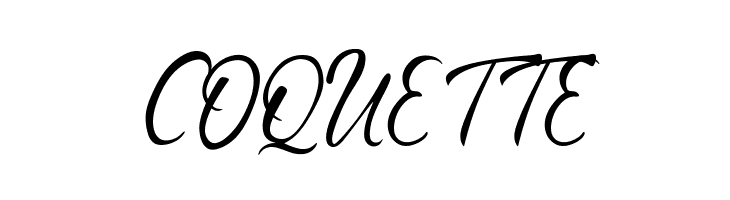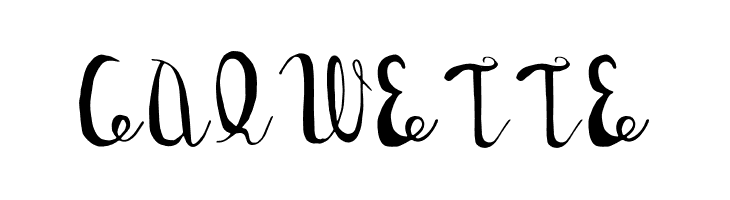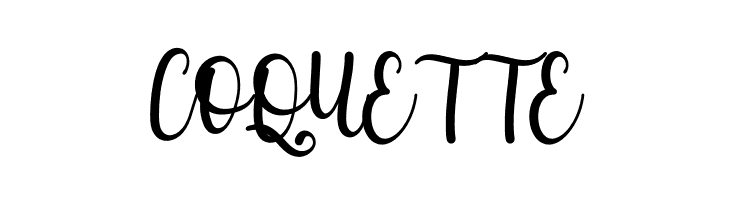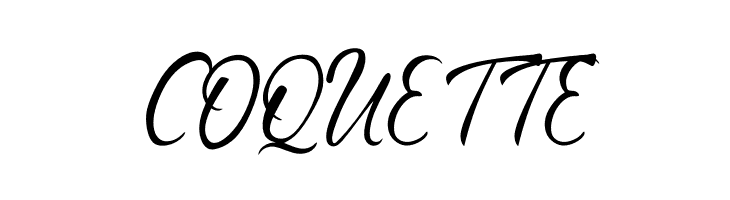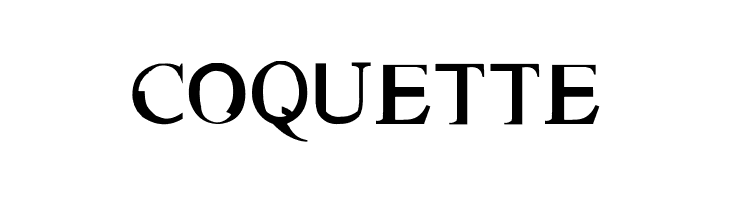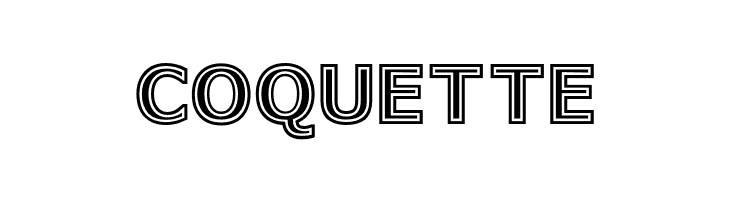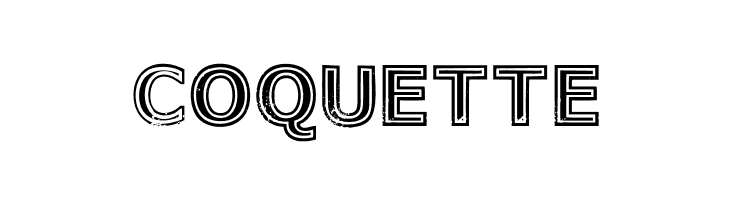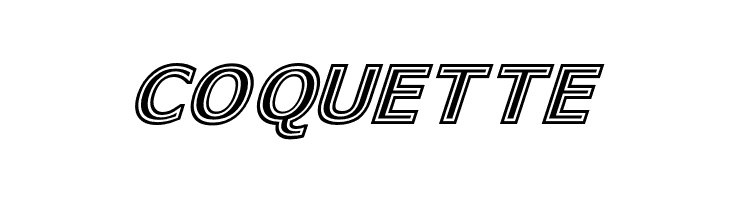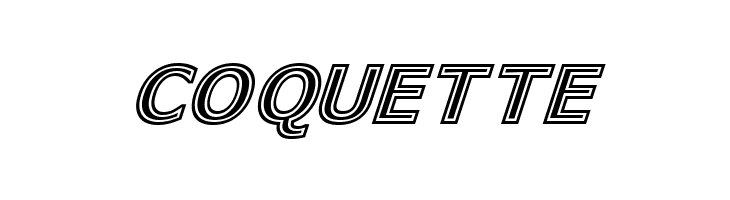
• Generica Bold
A bold, geometric font with a modern and impactful style.
• Genericons Regular
A versatile set of clean, minimalistic icons for digital applications.
• Generous Monarch
A dramatic, elongated font with sharp, tapering strokes and a hand-drawn feel.
• Genesa Regular
A bold, geometric font with a three-dimensional, retro-futuristic style.
• Genesee St Black
A bold, distressed font with a vintage, rugged appearance.
• Genesee St Italic
Bold, italicized font with a three-dimensional outline effect.
• Genesee St Regular
A bold, outlined font with a modern, geometric style.
• GeneseeSt-Black
A bold, distressed font with a vintage, rugged appearance.
• GeneseeSt-Italic
A bold, italicized font with a double-outline effect, perfect for modern and dynamic designs.
• GeneseeSt-Regular
A bold, outlined geometric font with a modern and structured appearance.
• Genesiss Regular_DEMO
A dynamic, handwritten script font with bold, expressive strokes.
• Genesiss Slant_DEMO
A dynamic, brush-style font with a pronounced slant and expressive strokes.
• GenesisSketches
Whimsical, abstract figures form each character in a bold, decorative style.
• Genetic Engine
A futuristic, geometric font with blocky, uniform letterforms enclosed in squares.
• Geng Rimba
An elegant script font with fluid, cursive strokes and sophisticated loops.
• Geng Rimba
A cursive, handwritten font with elegant, flowing strokes.
A bold, modern font with a slightly condensed style and consistent stroke width.
• Genghis Khan framed Med Obliq
A bold, oblique font with a dynamic, framed style ideal for impactful designs.
• Genghis Khan Medium 2
A bold, modern font with a geometric influence and strong visual impact.
• Genghis Khan Medium Blur
A bold, modern font with a blurred effect and rounded characters.
• Genghis Khan Medium Distorted
A rugged, distressed font with heavily textured, irregular edges.